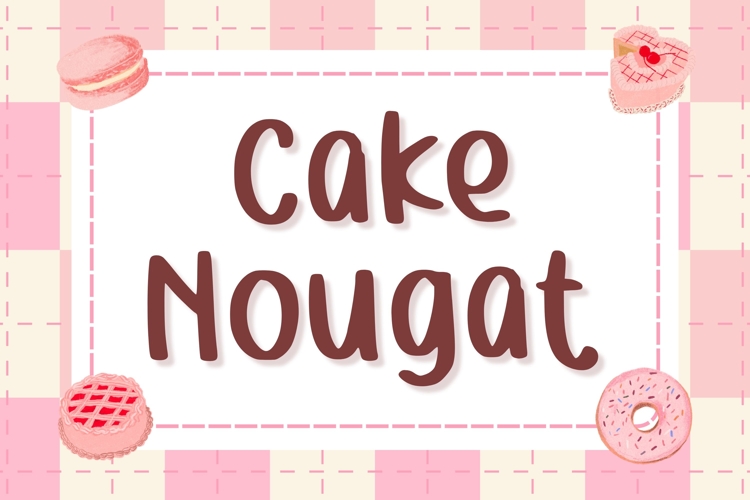
Reshape your ingredient lists and package designs with Cake Nougat, a font that infuses beauty into every pixel. With its crisp lines and elegant curves, Cake Nougat is the perfect typeface for enhancing visual communication and showcasing your creative finesse. Whether it's on an ingredient card or a product label, this font will ensure your design stands out in a crowd, effortlessly marrying functionality with aesthetic appeal. Transpose your imaginative ideas into reality with Cake Nougat - the font that lifts design to new heights.